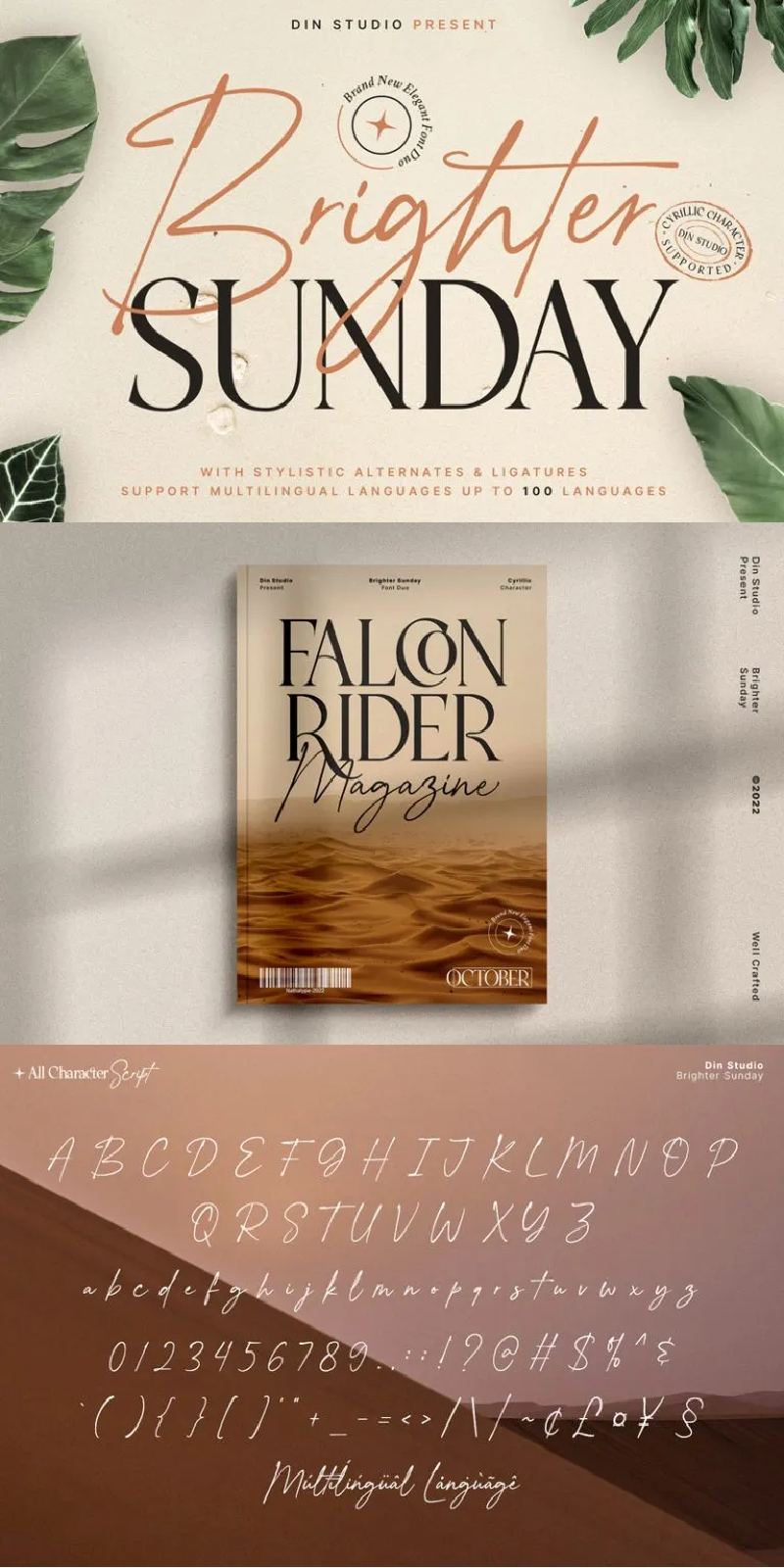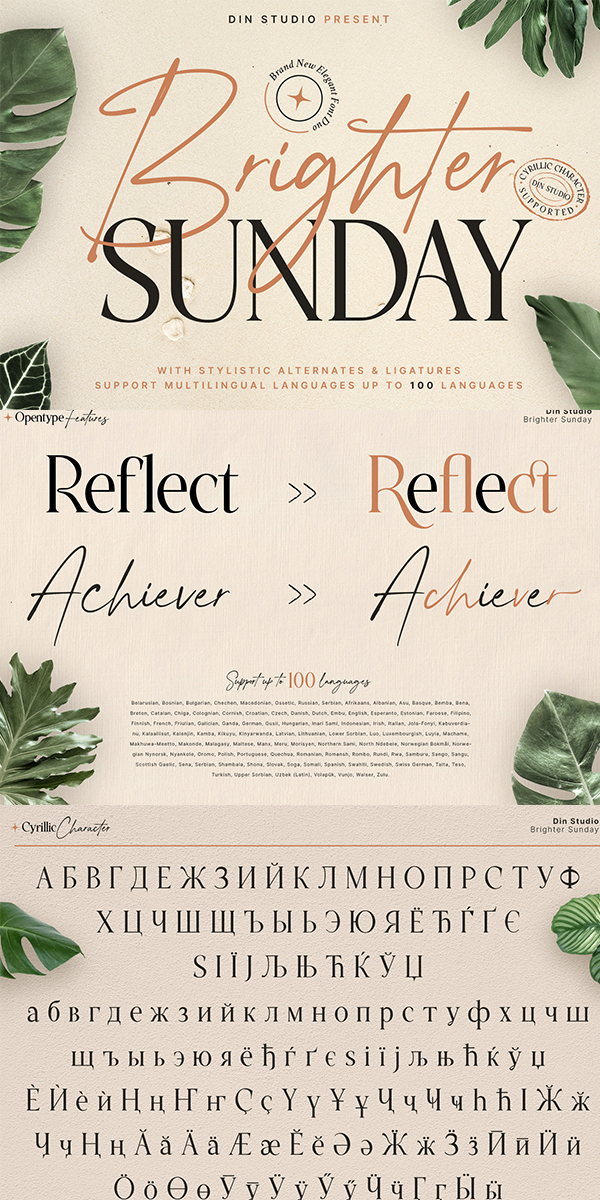
Brighter Sunday Font
About Brighter Sunday
Brighter Sunday is a duo font mixture of script and serif font from which you can either combine as a set of beauty or separate a part based on their own beautiful style. The curves and strokes resembling a handwriting style on the script expresses elegant, natural vibrations. In addition, the serif style weights will leave strong, modern impressions to all of your designs.
Brighter Sunday fits for any design projects, such as posters, banners, logos, invitations, magazine covers, quotes, headings, printed products, social media, etc. Find out more ways to use this font by taking a look at the font preview.